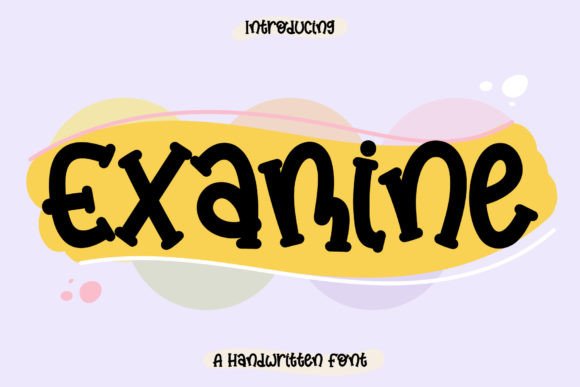
**Introducing Examine Font: The Epitome of Modern Elegance**
Unleash your creativity with the captivating allure of Examine Font, an exquisite handwritten font that exudes sophistication and charm. Its modern elegance seamlessly complements a vast array of design endeavors, transforming your projects into masterpieces of artistic expression.
Crafted by the renowned Wanida Toffy, Examine Font embodies a spirit of individuality and timeless style. Its fluid strokes and enchanting curves dance across the page, leaving an ethereal and unforgettable impression. Let your imagination soar as you explore the endless possibilities that await with this extraordinary font.
**Immerse Yourself in a World of Endless Possibilities**
From captivating branding and alluring headings to heartfelt wedding invitations and personalized signatures, Examine Font effortlessly elevates every design concept. Its versatility knows no bounds, making it the perfect choice for designers, artists, and creative professionals seeking a touch of elegance and modernity.
Whether you're creating stunning logos, captivating labels, or simply adding a touch of personal flair to your projects, Examine Font empowers you to express your creativity with unparalleled grace and style.
**Discover the Allure of Examine Font Today**
Embrace the enchanting allure of Examine Font and unlock a world of design possibilities. Its beauty captivates, its versatility inspires, and its modern elegance elevates your projects to extraordinary heights.